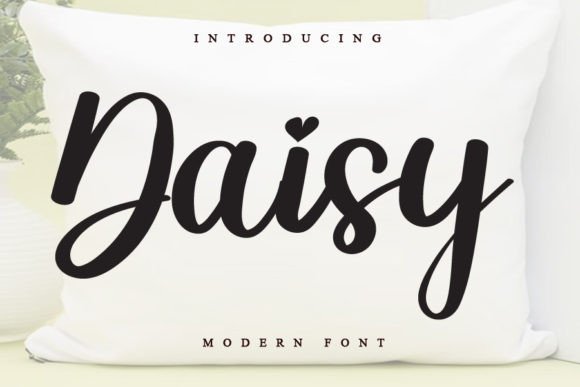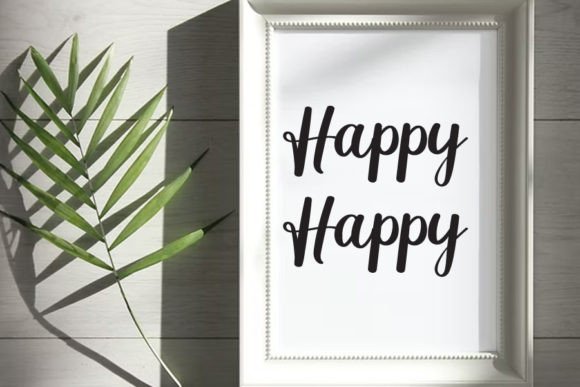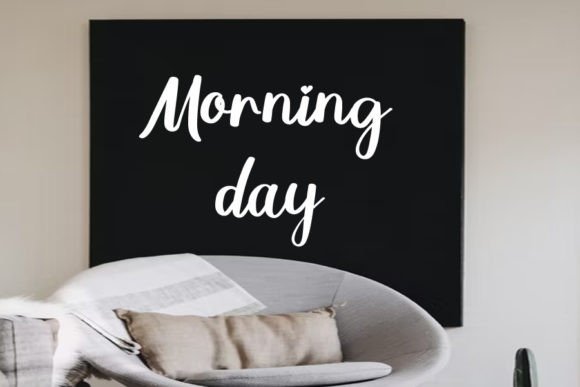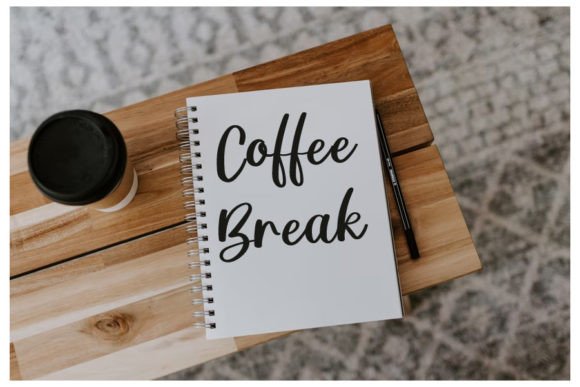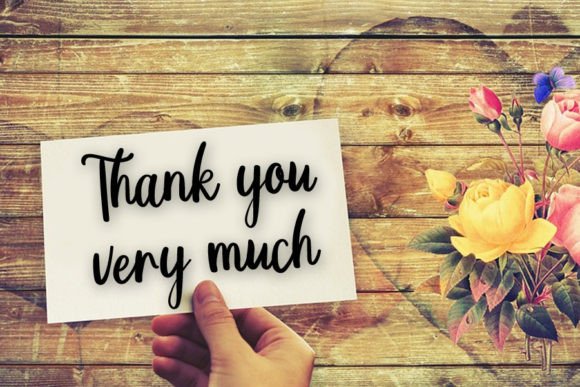
Daisy Font
About Daisy Font
“Daisy” is a fresh and beautiful font that adds a touch of elegance and uniqueness to your design projects. This versatile font is well-suited for a variety of design purposes, making it a great choice for YouTube banners, cover logo mockups, wedding invitations, ID cards, flyers, and various craft projects.
The charm of “Daisy” lies in its ability to convey a sense of freshness and simplicity while maintaining a unique and eye-catching appeal. Each character is thoughtfully designed to exude a contemporary and stylish flair, making it an ideal choice for projects where you want to create a memorable and visually appealing impression. Whether you’re working on digital or print materials, “Daisy” offers a versatile and stylish script that adds a touch of elegance to your content.
For personal branding, product designs, promotional materials, and a wide range of design applications, “Daisy” provides the creative freedom to make your projects stand out. Its beautiful and unique style can enhance the visual appeal of your designs and effectively communicate your message to your audience.
In summary, “Daisy” is a valuable font that brings freshness and elegance to your creative work. Its contemporary style and versatility make it suitable for a variety of applications, and its ability to convey simplicity and uniqueness sets it apart. With “Daisy” in your font collection, your design projects will exude a sense of modern style and individuality that leaves a lasting impression.